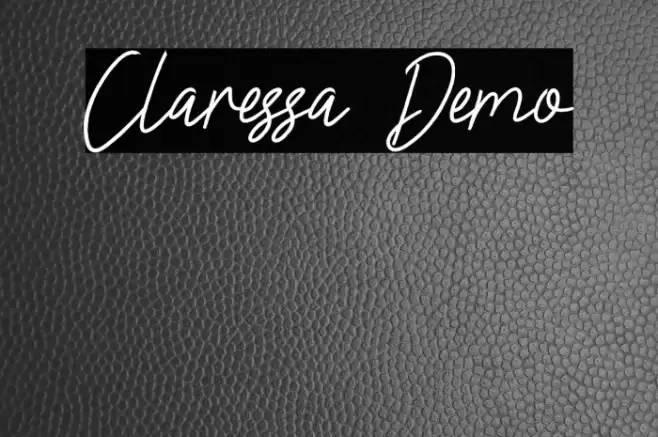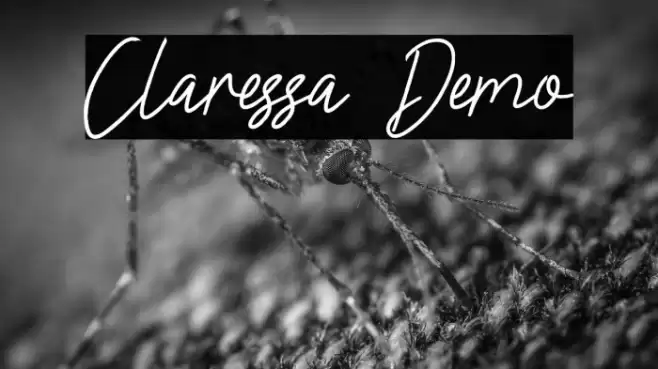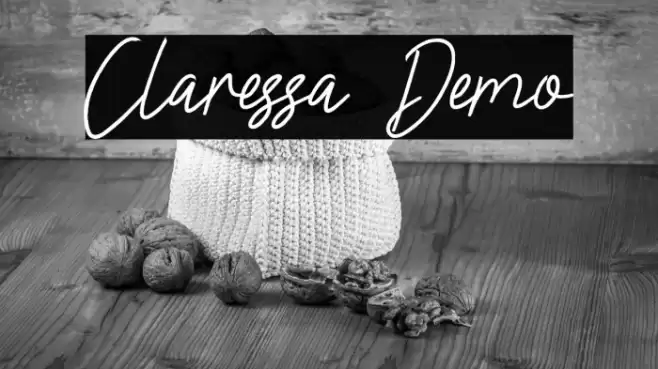
Claressa Demo Font
Claressa Demo Description
This font exudes a casual elegance with its flowing, cursive style. The letters are interconnected, mimicking the fluidity of natural handwriting. Each character is crafted with a consistent stroke width, providing a harmonious and balanced appearance. The uppercase letters are slightly larger and more pronounced, while the lowercase letters maintain a smooth and continuous flow. This font is ideal for projects that require a personal touch, such as invitations, greeting cards, or branding materials. Its legibility and charm make it suitable for both digital and print media.
A cursive, handwritten-style font with fluid, interconnected letters from Regular fonts.
- Proposed Projects: Ideal for invitations, greeting cards, branding materials, and personal notes.
- Overall Style: Casual, Elegant
- Use Case: Headlines, Logos, Personal notes